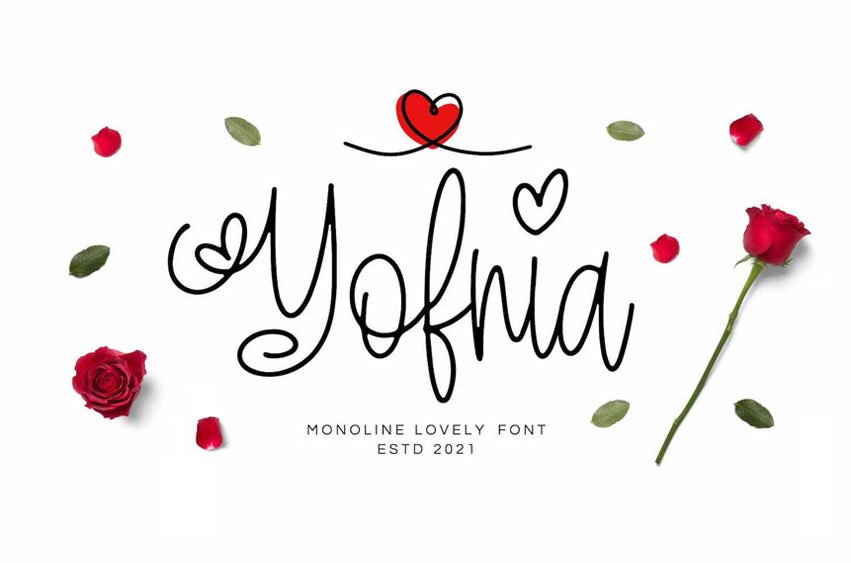
Yofnia Font is perfect for many of your projects like logos & branding, photography, invitations, watermarks, advertisements, product designs, stationery, wedding designs, labels, product packaging, special events and much more.
- Numeral & Punctuation
Opentype Feature 15+ Ligature